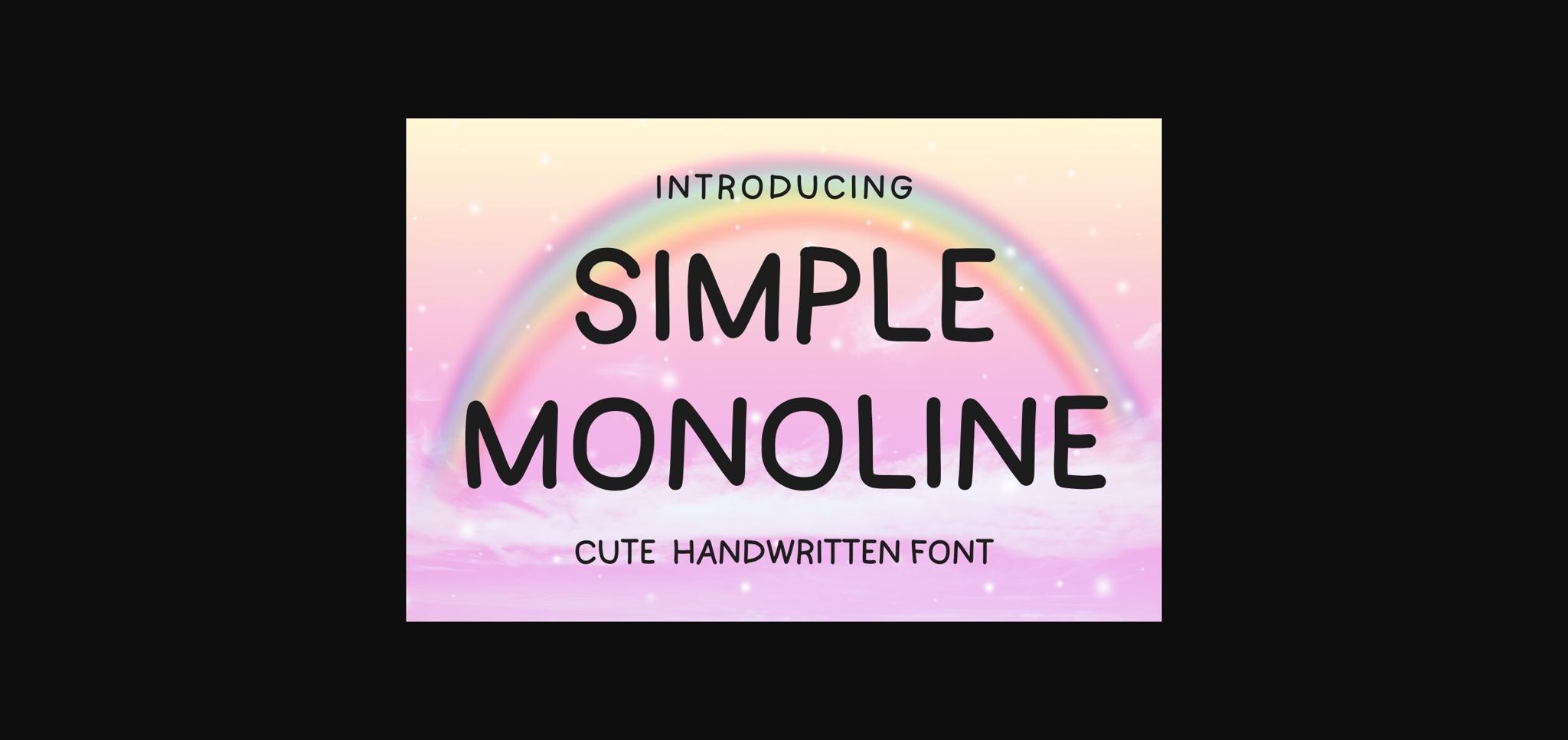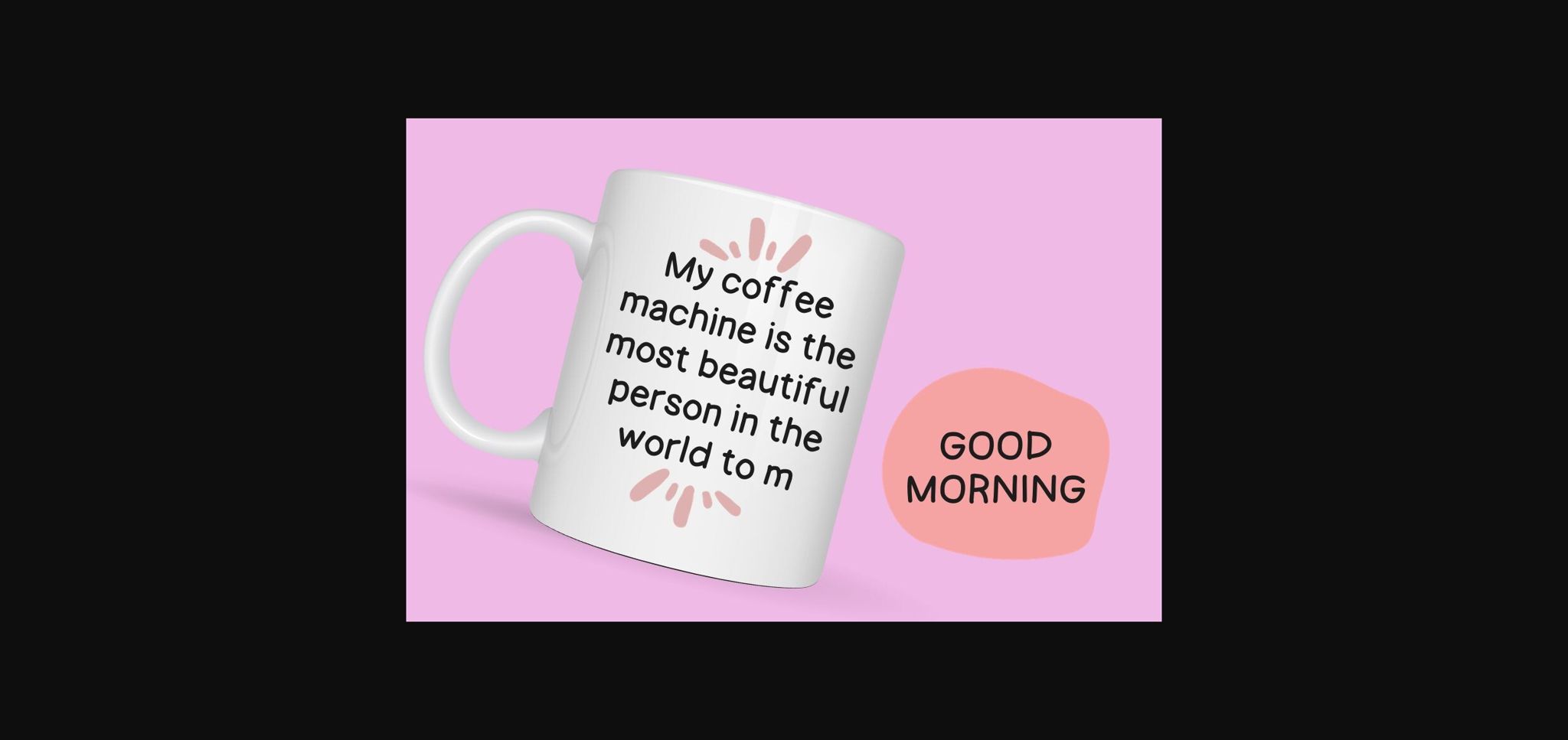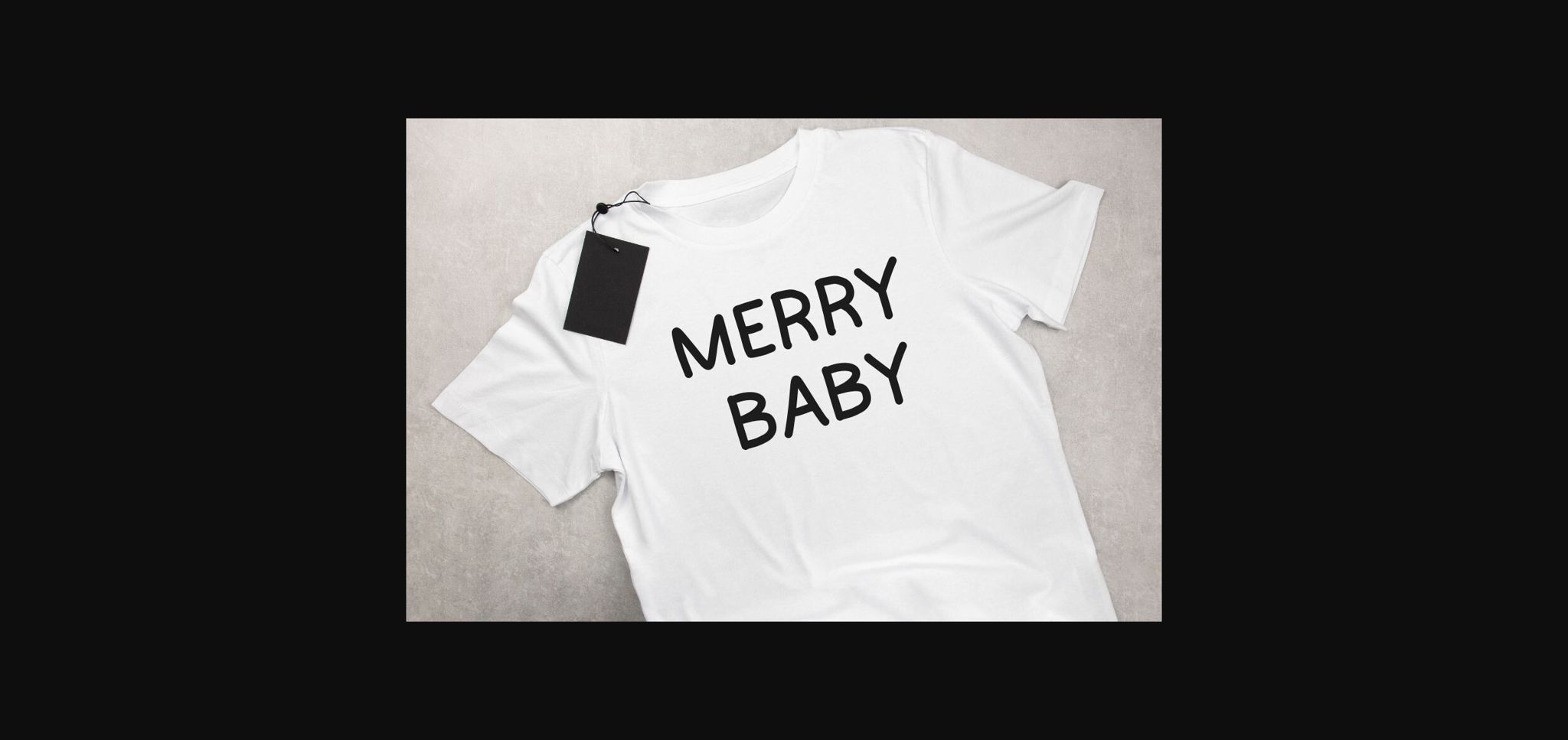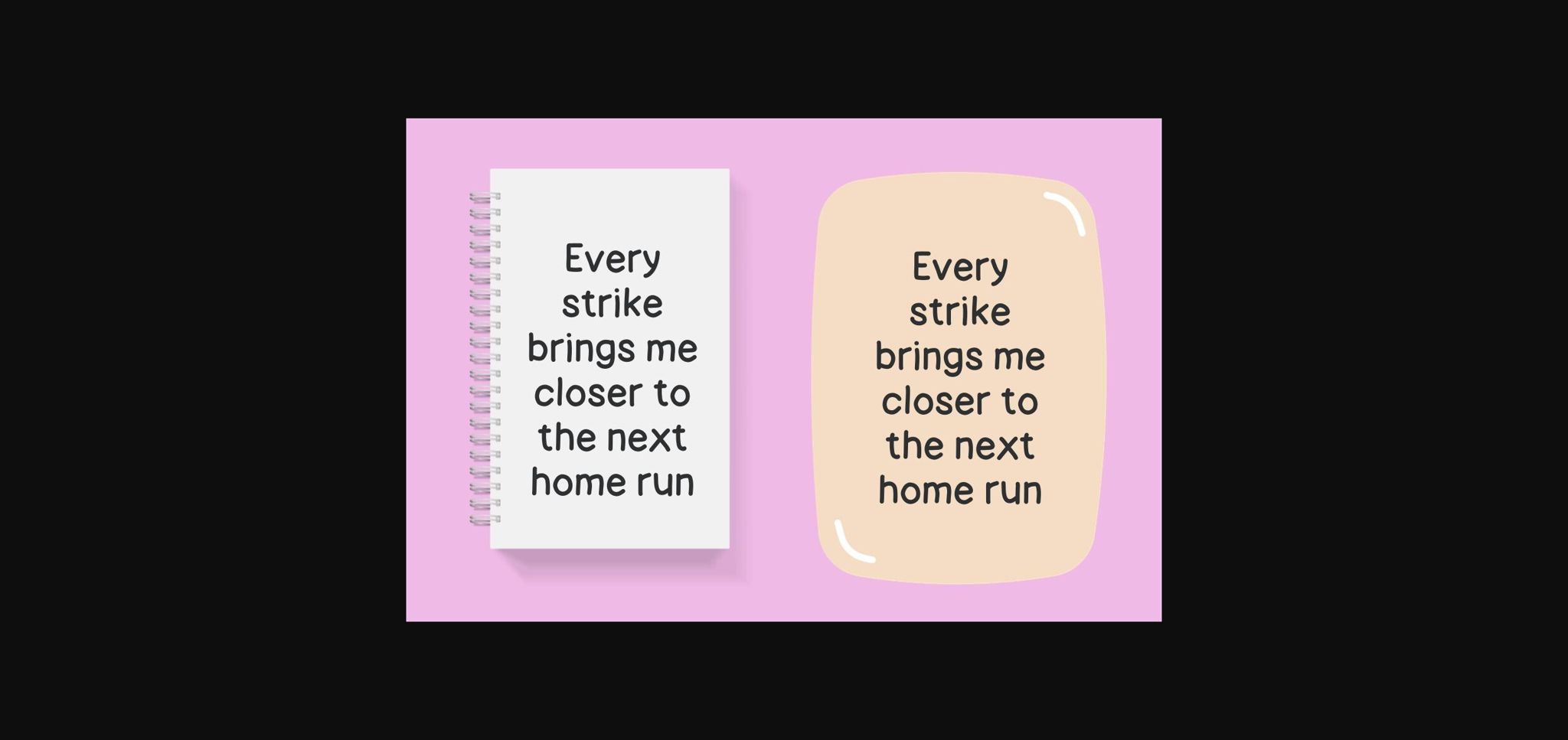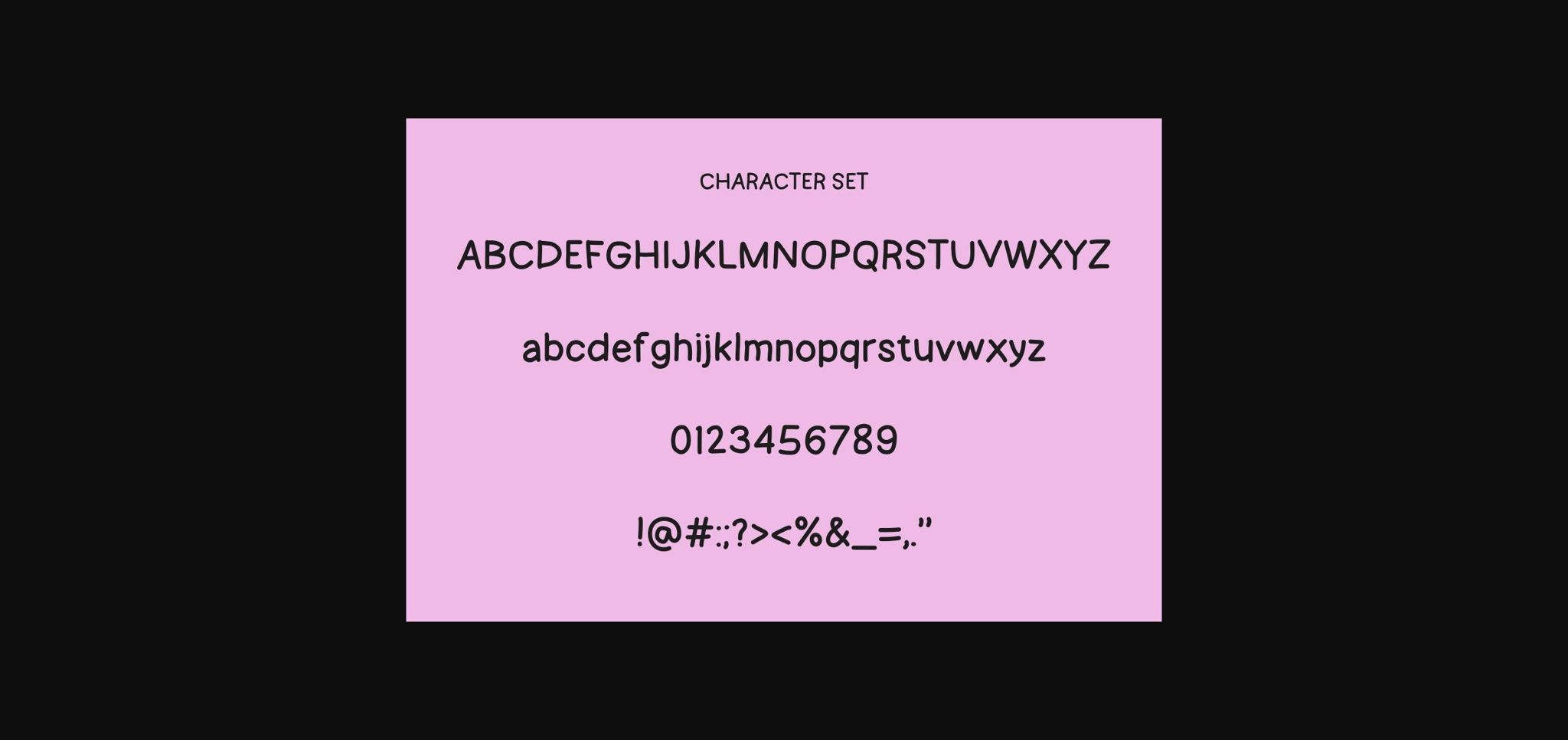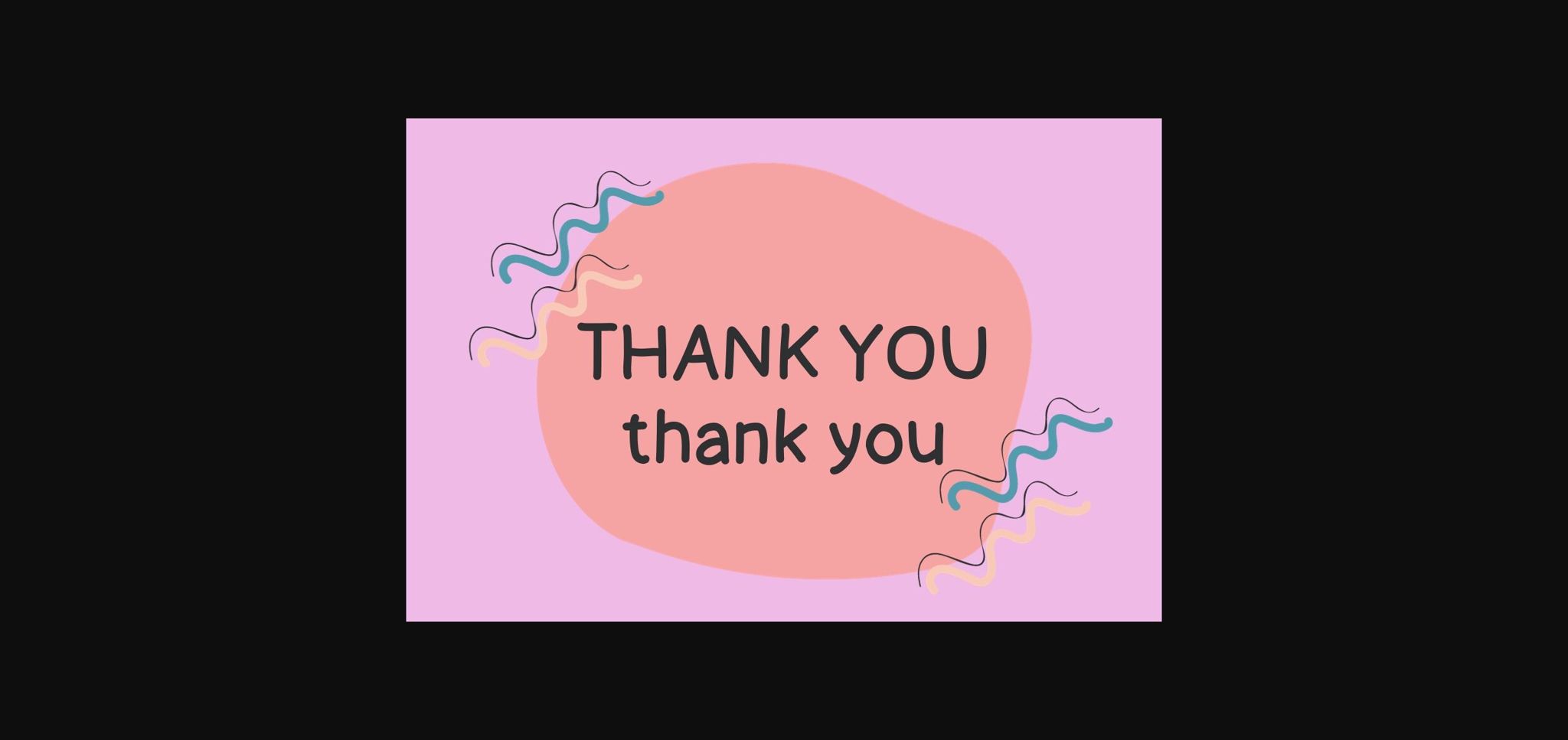
Simple Monoline Font
Simple Monoline is designed in a playful and friendly handwritten sans serif font style. It would be awesome to your fun projects or diary planner. Let’s try it to your perfect projects such as Easter, back to school, wedding, party decoration, invitations, Fall, Halloween, Christmas, posters, blogs, clothing, child-related designs, greeting cards, social media posts or anything that needs a friendly touch. Add it now to your fonts library, and it will bring any of your DIY projects to life.